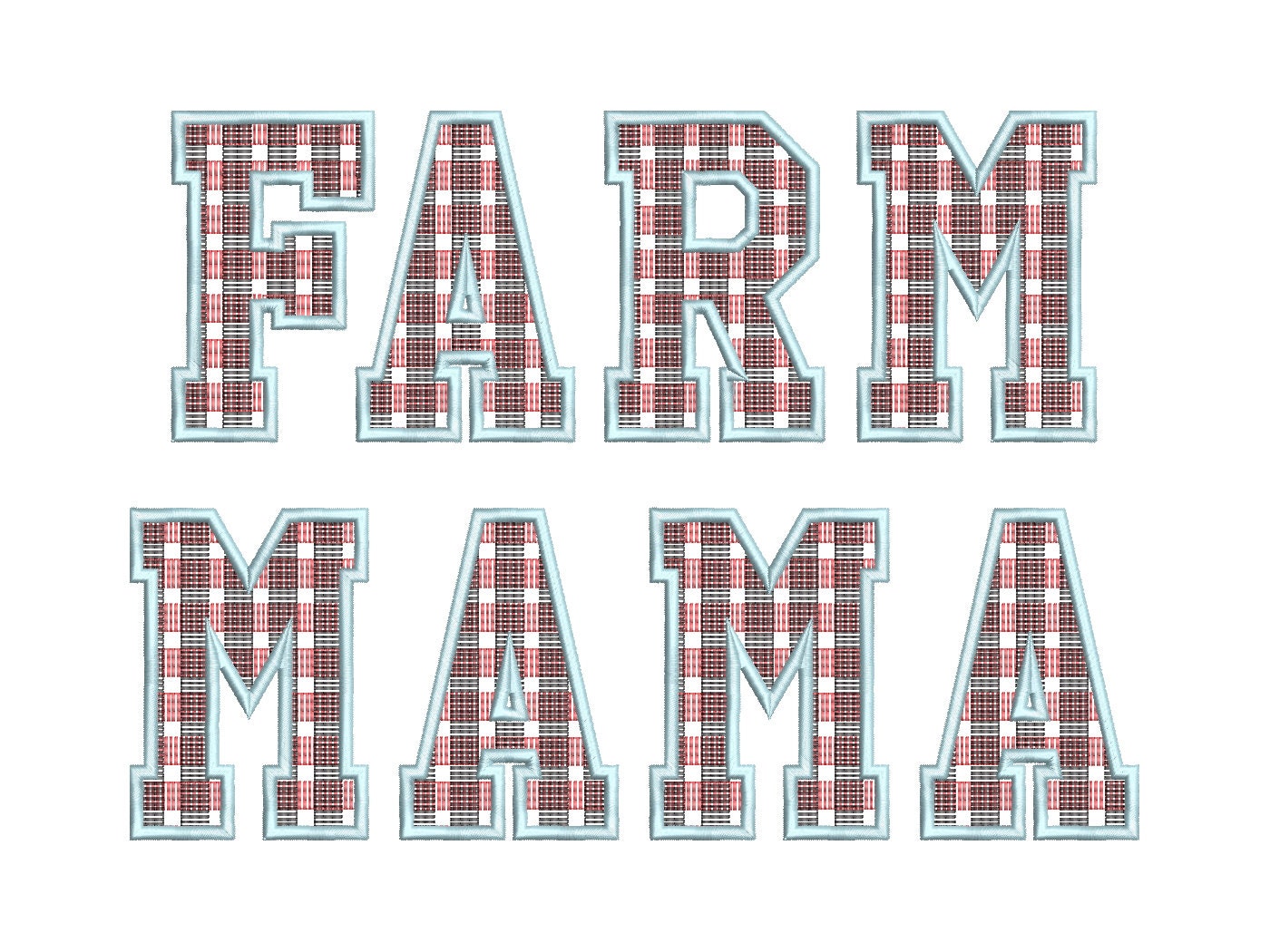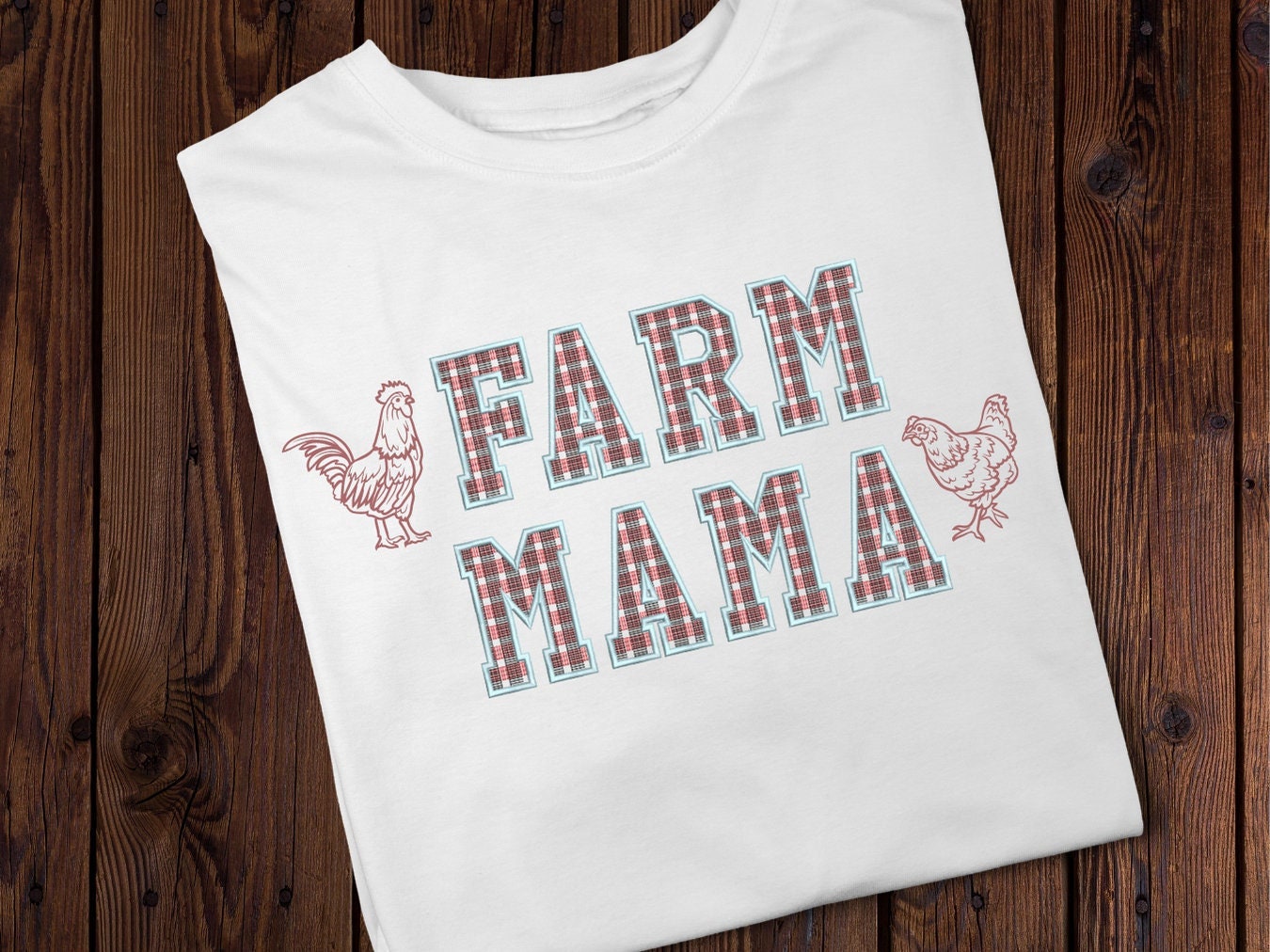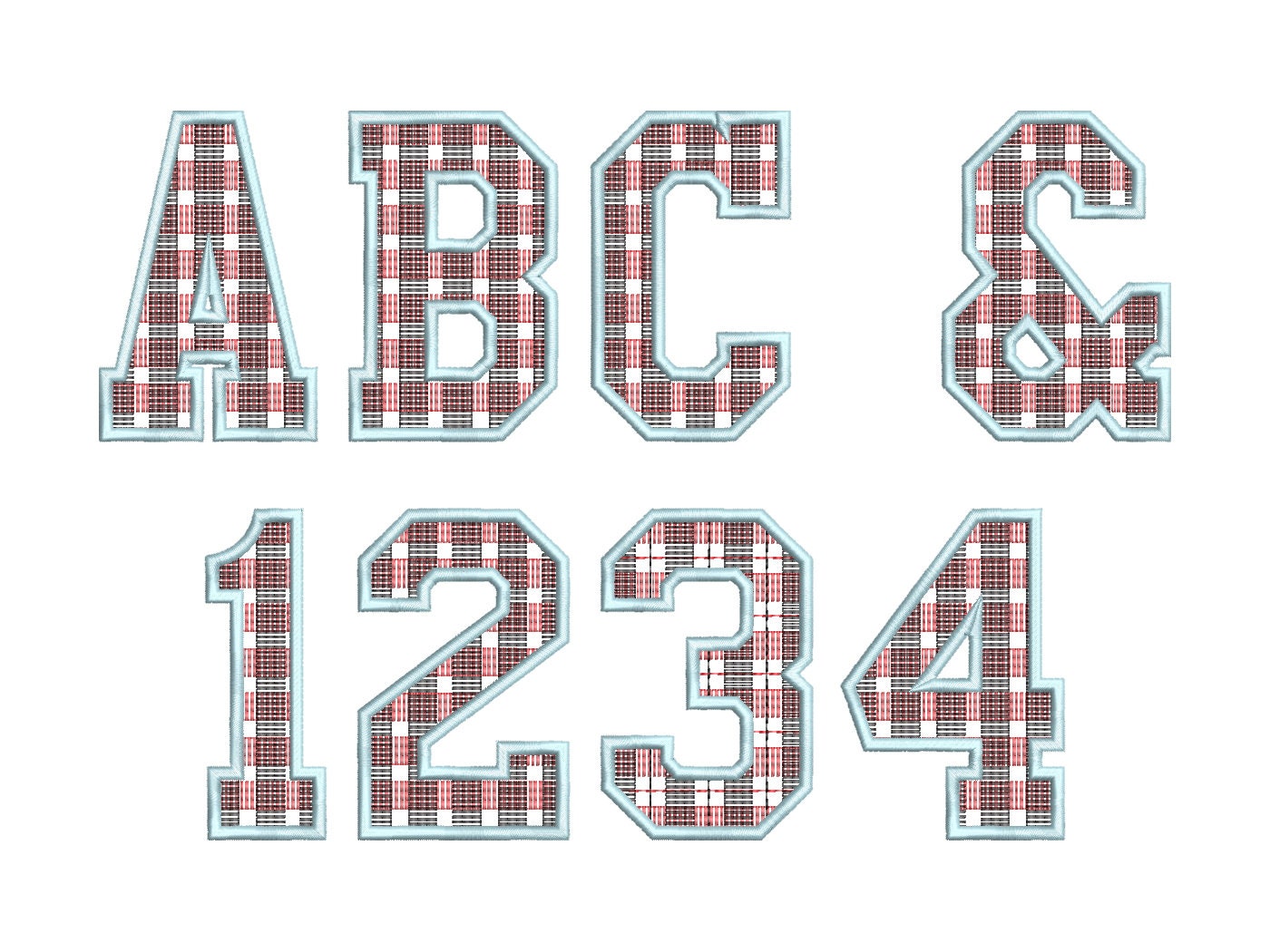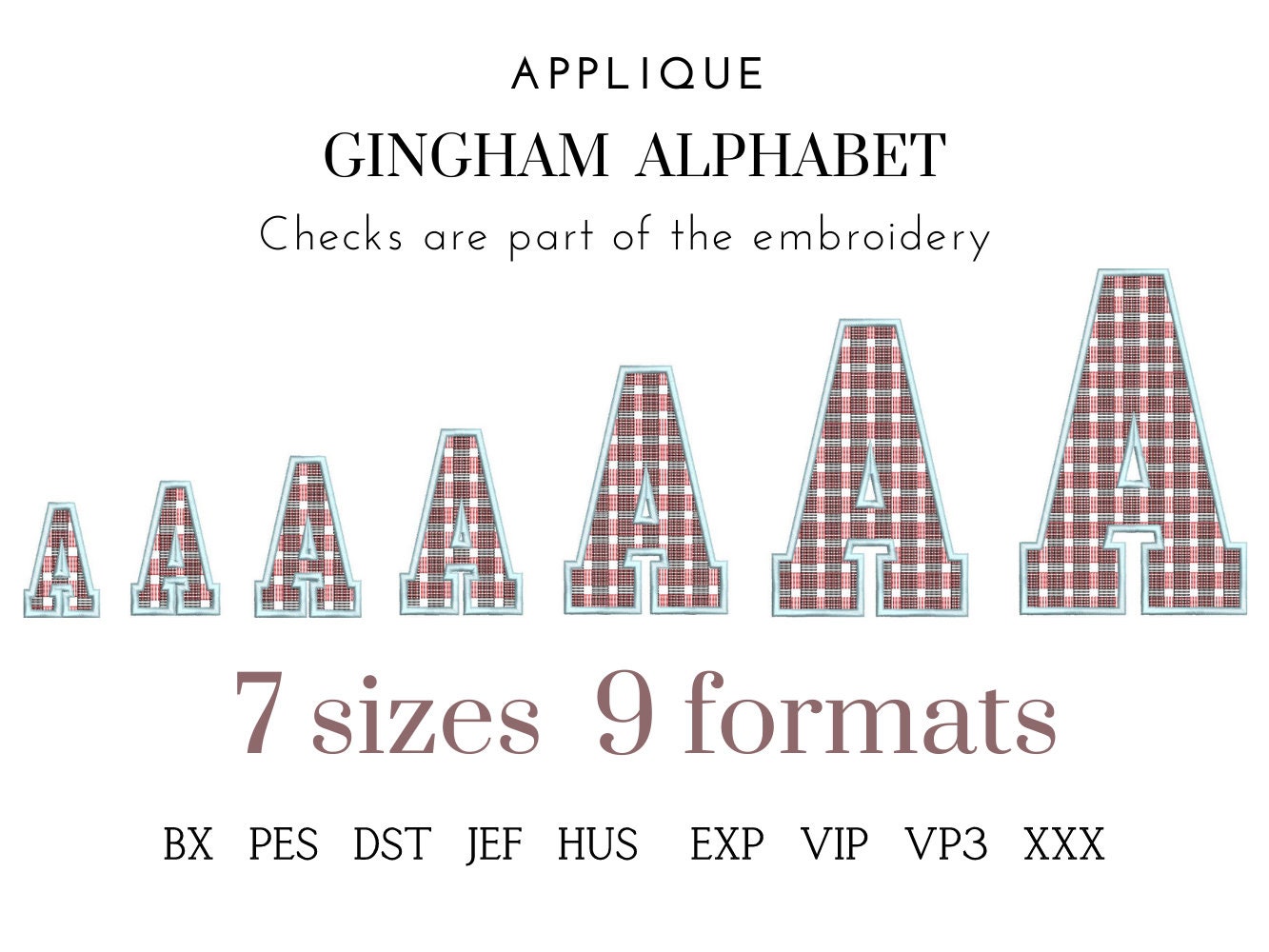
Gingham Block Font applique checkered alphabet letters numbers machine embroidery applique designs in assorted sizes Buffalo Plaid Tartan, BX included
Gingham plaid checks are part of the embroidery.
Whole alphabet A-Z and numbers 0-9, and special marks & ?